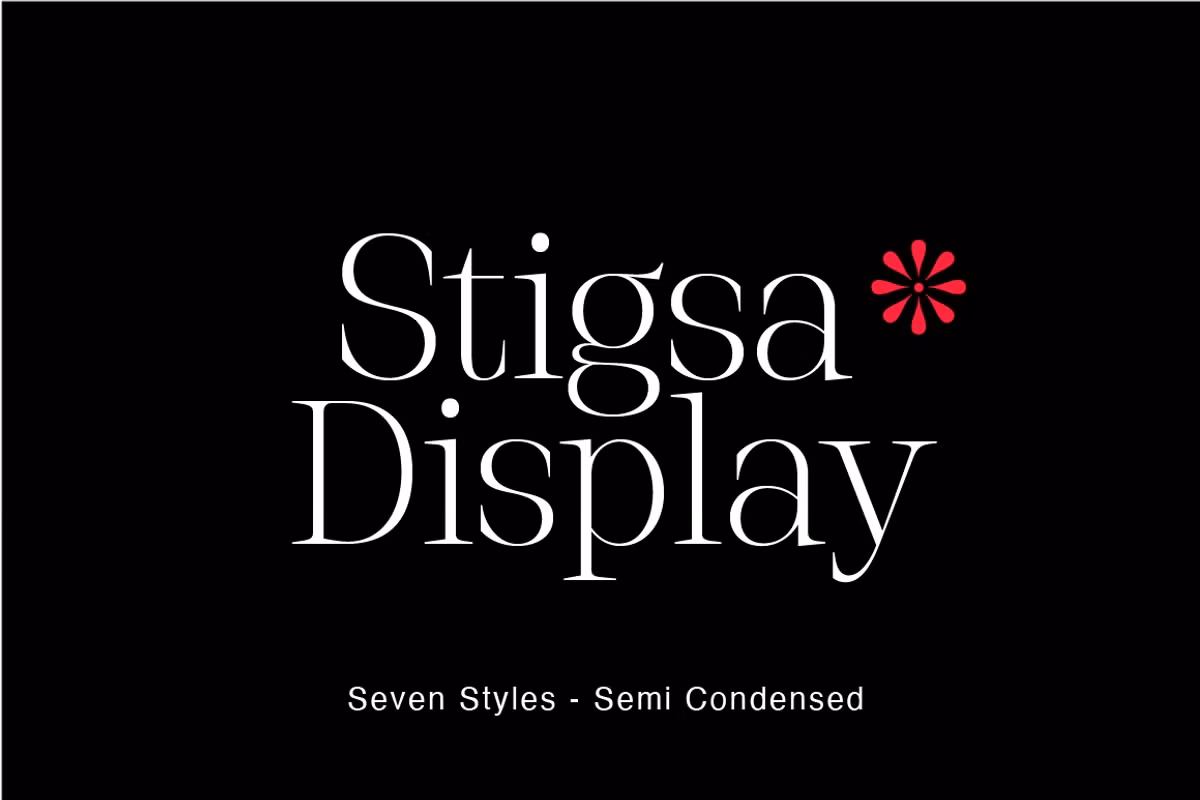
Stigsa Semi Condensed Free Download
Stigsa Semi Condensed Font Free Download
The Stigsa Semi Condensed Font Free Download is a sleek, modern typeface designed for versatility and impact. Featuring a semi-condensed structure, this font combines elegance with readability, making it ideal for creating professional branding, editorial designs, logos, and marketing materials. Whether you're working on a corporate project, digital content, or creative designs, Stigsa brings a refined, contemporary feel to your work.
Stigsa Semi Condensed Font Free Download is perfect for designers looking for a balanced, modern typeface with excellent legibility. Ideal for professional branding, user interfaces, and creative projects, this font will add a stylish yet practical touch to your designs. Download it today and elevate your creative work with Stigsa's modern, semi-condensed style!